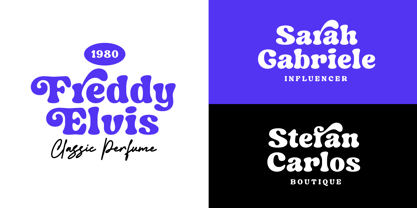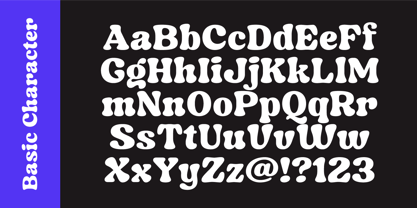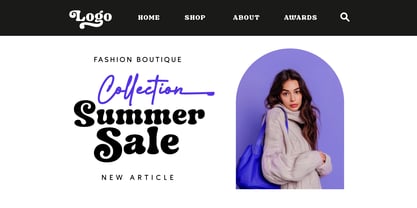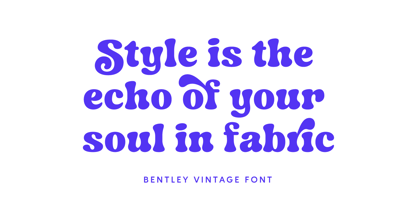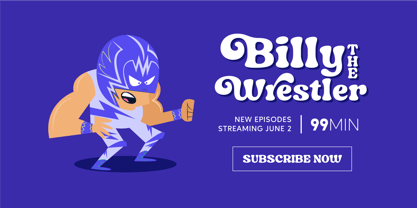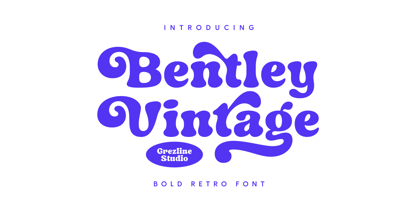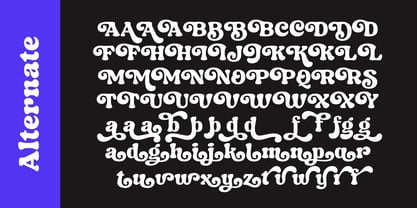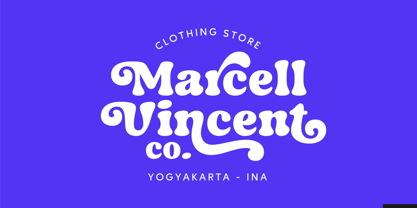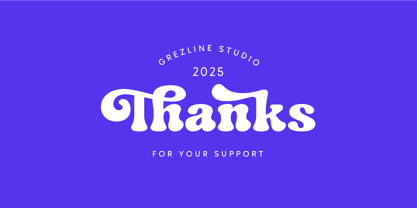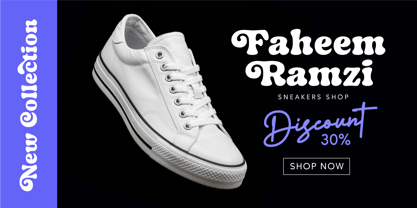
Bentley Vintage
by Grezline Studio
The Bentley Vintage Font Family was designed by Akhmad Reza Fauzi and published by Grezline Studio. Bentley Vintage contains 1 styles.
Introducing Bentley Vintage, a meticulously crafted retro font that bridges nostalgia with contemporary sophistication—where vintage charm meets exacting modern standards. Whether you're crafting a brand identity, designing a retro-themed poster, or adding character to a digital campaign, Bentley Vintage delivers.
This isn't just another retro font; it's a design asset with the charm of yesteryear and the flexibility today's creatives demand.
Feature :
- Alternate and Ligature
- Multilingual Language
Designers: Akhmad Reza Fauzi
Publisher: Grezline Studio
Foundry: Grezline Studio